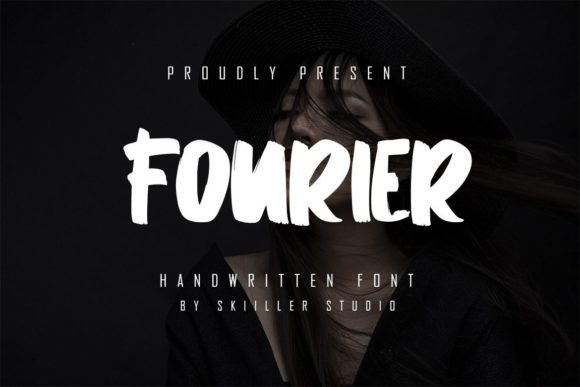
Introducing Fourier Font: Elevate Your Designs with a Modern and Brushed Handwritten Style
In the world of typography, fonts play a crucial role in conveying the tone and personality of a brand or design. For designers and crafters looking to add a touch of urban sophistication to their work, Fourier Font is an excellent choice. This modern and brushed handwritten font is specifically crafted to give your headlines and logotype projects a stylish edge.
The Characteristics of Fourier Font
Fourier Font reads as strong, confident, and dynamic, making it perfect for designers who want to create a lasting impression. Its unique blend of modern and handwritten elements gives it a distinctive look that sets it apart from other fonts. With Fourier Font, you can add tons of urban character to your designs, making them stand out in a crowded market.
Key Features of Fourier Font
- Modern and Brushed Handwritten Style: Fourier Font boasts a fresh and contemporary look, with a brushed handwritten style that adds a touch of elegance to your designs.
- Strong and Confident: The font’s bold and dynamic personality makes it perfect for headlines, logotypes, and other design projects where you want to make a statement.
- Urban Character: Fourier Font’s unique blend of modern and handwritten elements gives it a distinctly urban feel, making it ideal for designers who want to add a touch of city chic to their work.
- Versatile: Whether you’re working on a logo, brochure, or website, Fourier Font is a versatile choice that can be used across a wide range of design projects.
Why Choose Fourier Font?
With so many fonts available, why choose Fourier Font? Here are just a few reasons why designers and crafters are falling in love with this modern and brushed handwritten font:
- Unique and Eye-Catching: Fourier Font’s distinctive look makes it a great choice for designers who want to create a lasting impression.
- Easy to Read: Despite its bold and dynamic personality, Fourier Font is surprisingly easy to read, making it perfect for use in a wide range of design projects.
- High-Quality: Fourier Font is a high-quality font that is designed to deliver exceptional results, whether you’re working on a print or digital project.
How to Use Fourier Font in Your Designs
So, how can you use Fourier Font in your designs? Here are a few ideas to get you started:
- Headlines and Titles: Use Fourier Font to create bold and eye-catching headlines and titles that grab attention.
- Logotypes and Branding: Fourier Font is a great choice for logotypes and branding projects, where its unique and memorable look can help to establish a strong brand identity.
- Posters and Flyers: Add a touch of urban sophistication to your posters and flyers with Fourier Font.
- Web Design: Fourier Font can also be used in web design, where its clean and modern look can help to create a professional and stylish website.
In conclusion, Fourier Font is a modern and brushed handwritten font that is perfect for designers and crafters looking to add a touch of urban sophistication to their work. With its strong and confident personality, unique blend of modern and handwritten elements, and versatile design, Fourier Font is an excellent choice for a wide range of design projects. Whether you’re working on a headline, logotype, or website, Fourier Font is sure to deliver exceptional results.